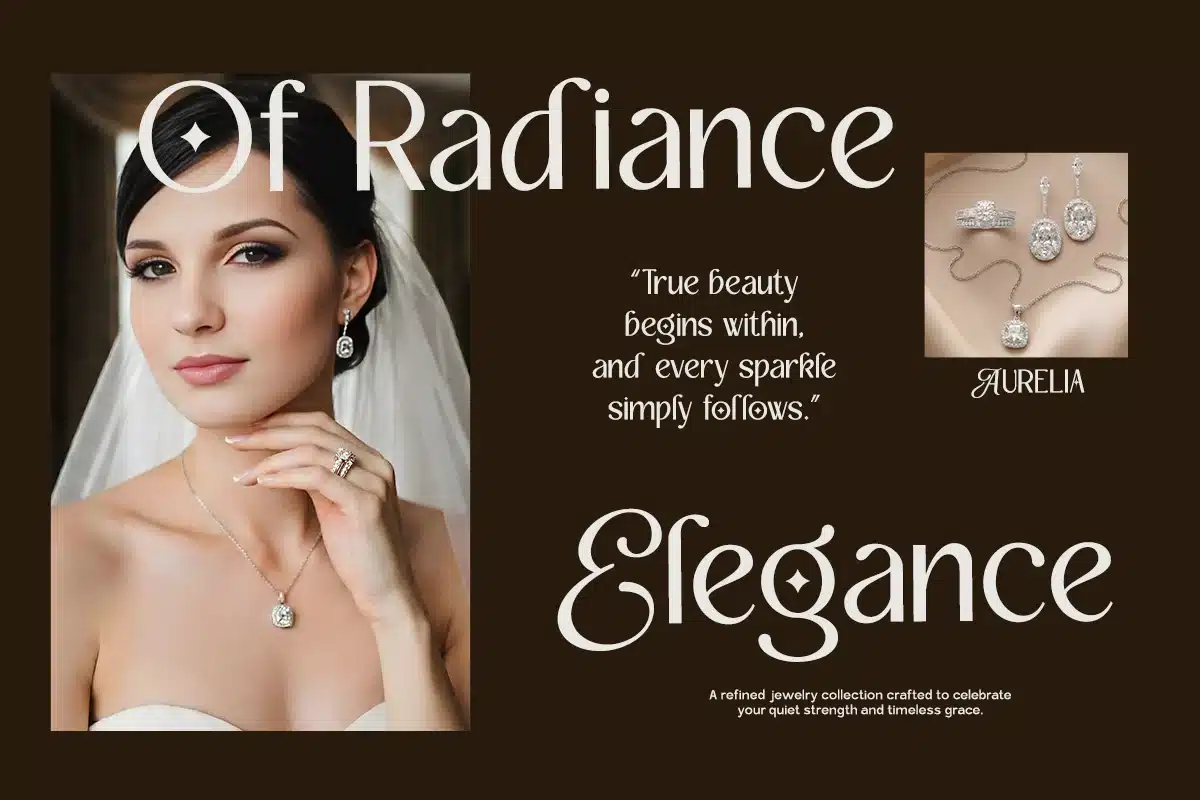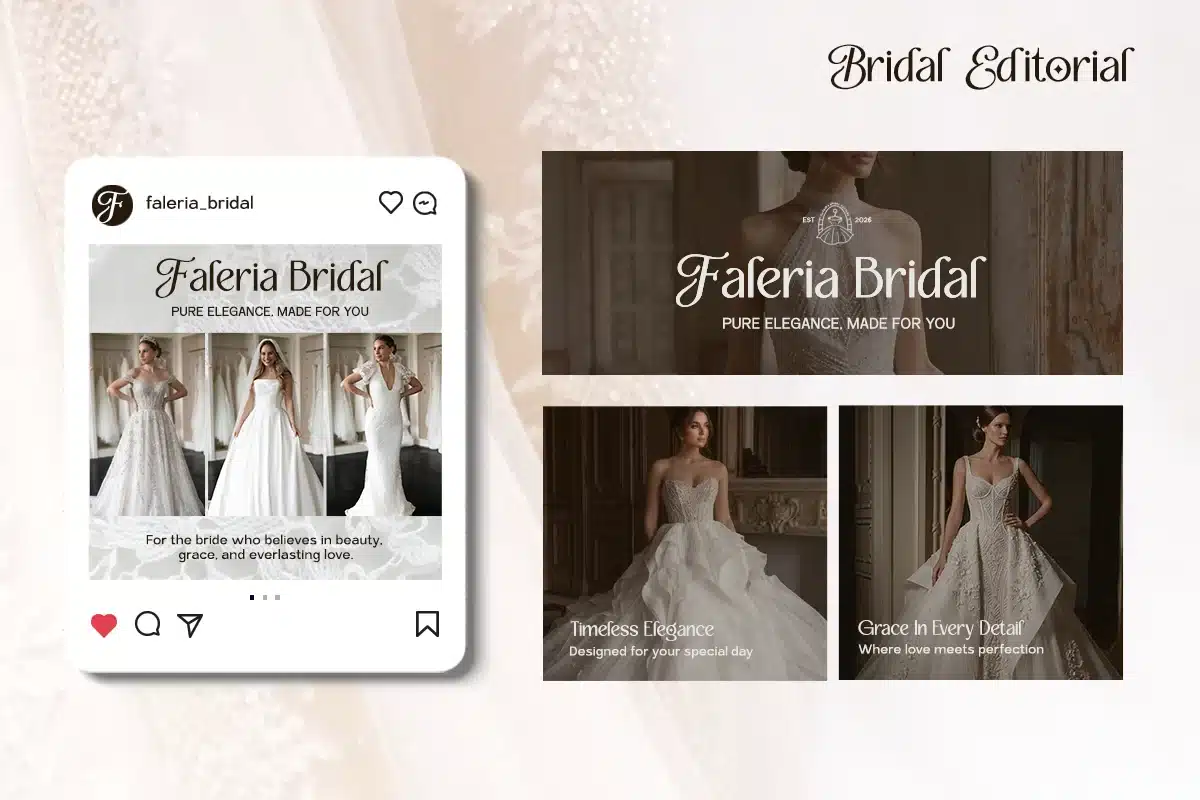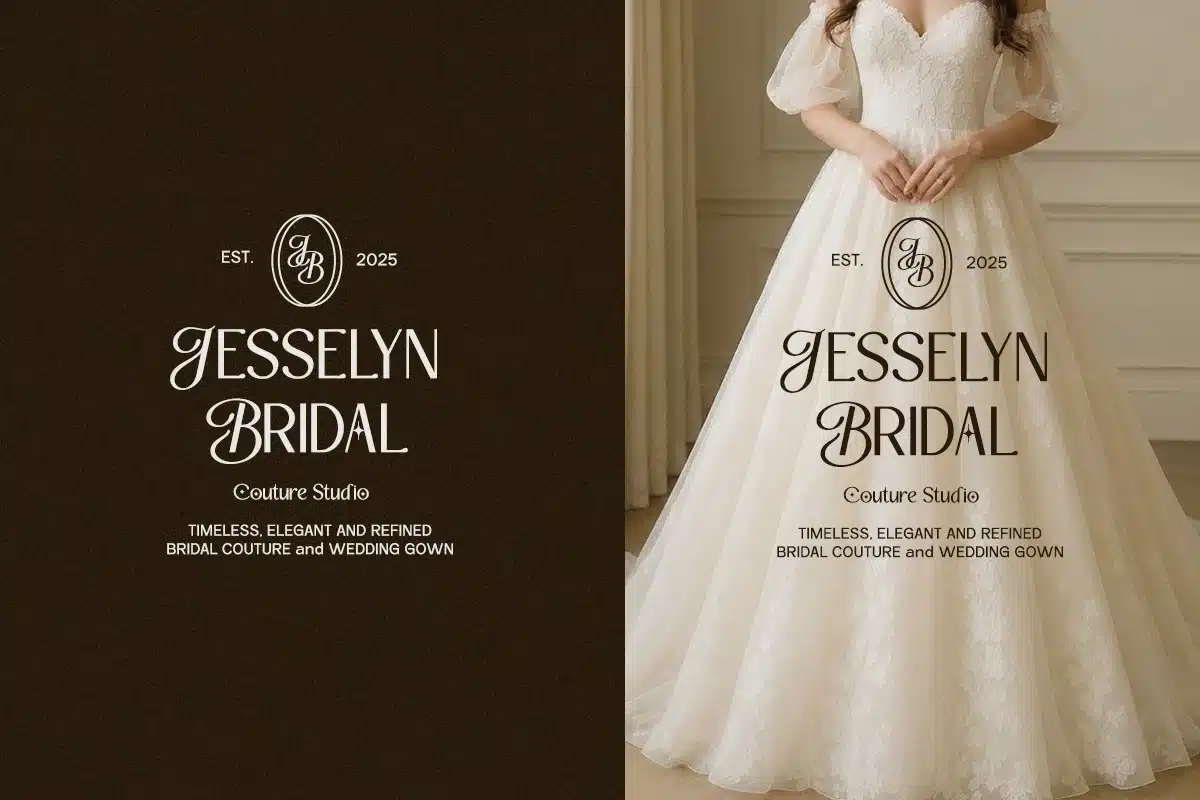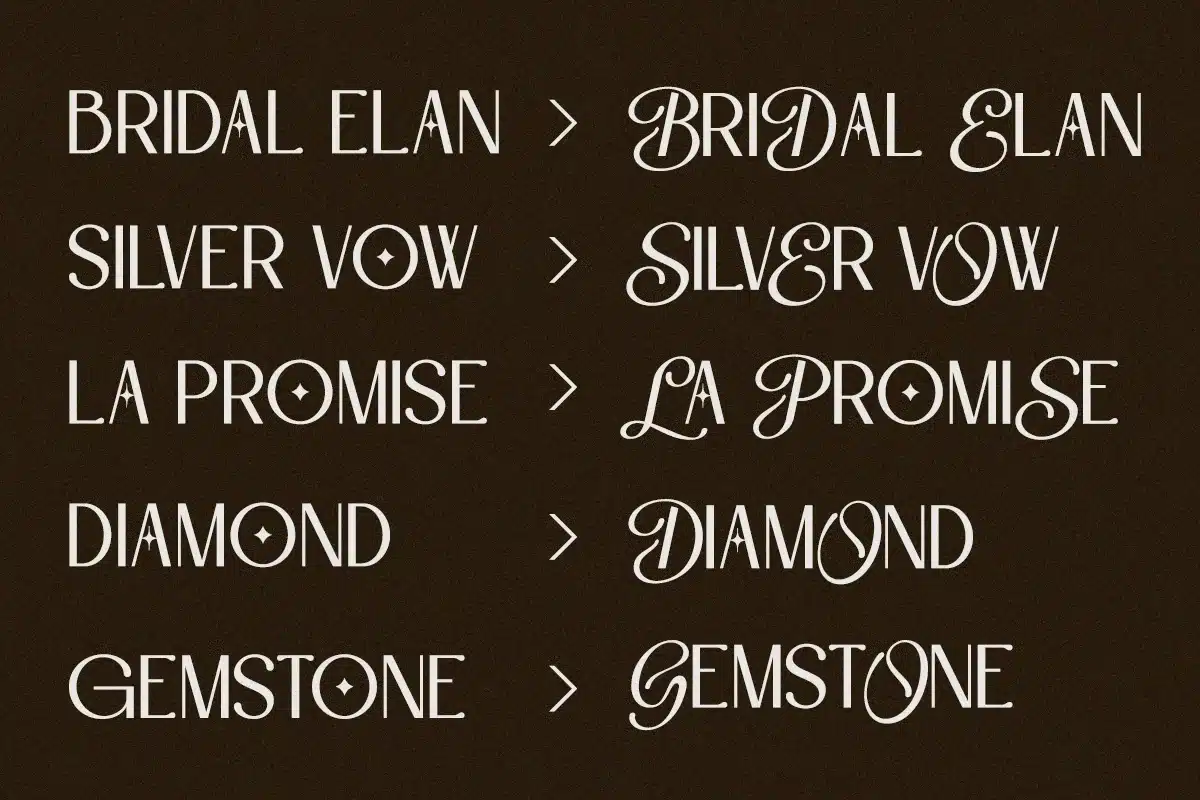
Elegant Sans Font – Gosera
Gosera is a sophisticated sans serif typeface designed to embody timeless elegance and refined luxury. With its graceful curves and delicate contrasts, this font captures the essence of romance—making it a perfect choice for wedding invitations, luxury jewelry branding, and high-end editorial design.
The harmonious blend of modern simplicity and subtle decorative flourishes gives Gosera a distinctive, upscale character. Each letterform is crafted to feel soft yet confident, evoking a sense of exclusivity and beauty.
Whether used for logos, packaging, or special event designs, Gosera brings a touch of glamour and effortless sophistication to every composition—making every detail feel truly unforgettable.
- Stylistic Alternates